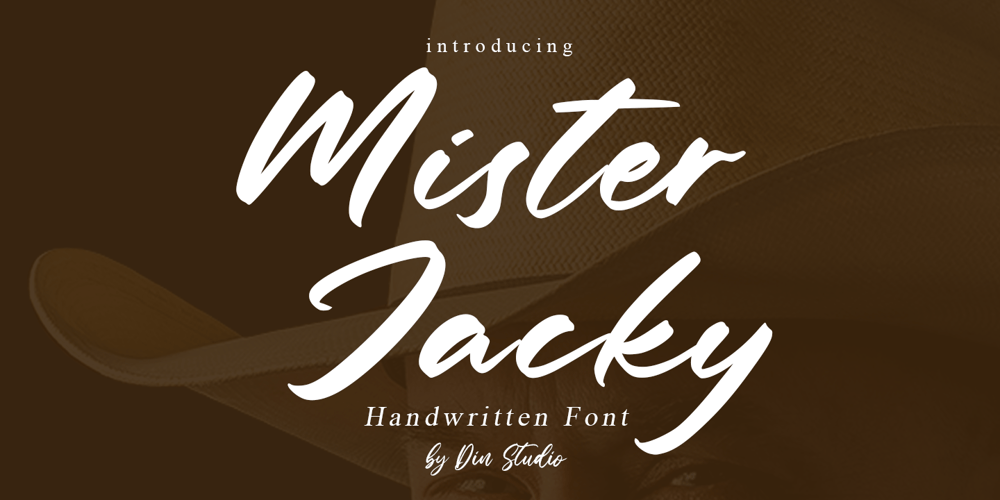
Mister Jacky Font Family was designed by Donis Miftahudin and published by Din Studio. Mister Jacky contains 1 styles and family package options. Mister Jacky is a modern handwritten font. It will make your design project more powerful and beautiful. The font is suitable for any project such as logos, branding and quotes.. Enjoy the Font!Features: Ligature Accents (Multilingual characters) PUA encoded Numerals and Punctuation (OpenType Standard) Thanks for visiting and purchasing my font!